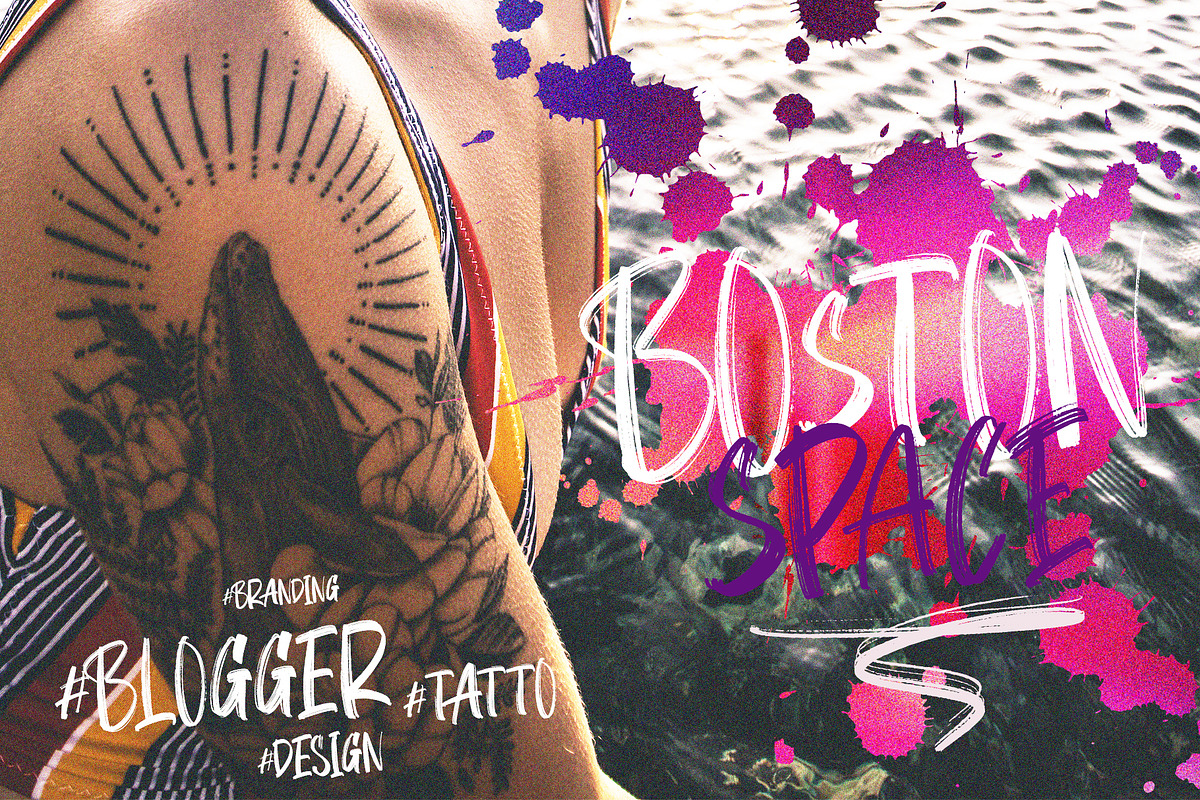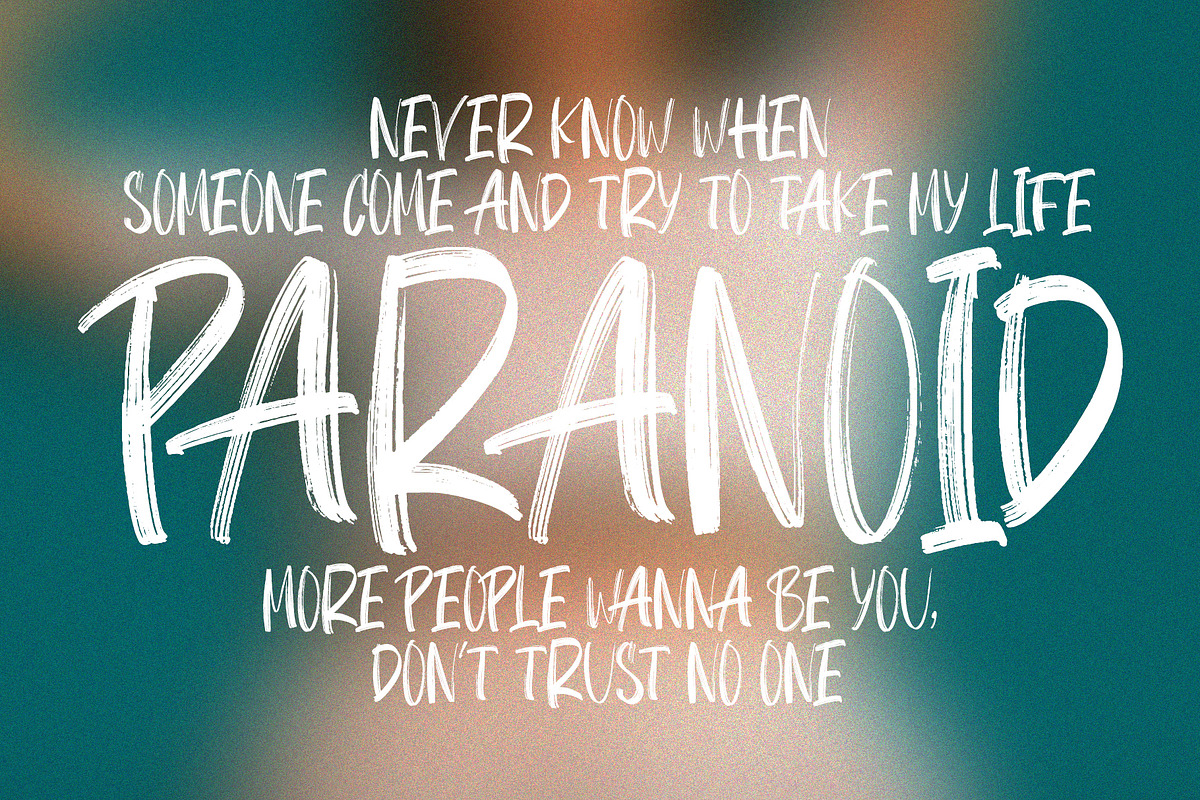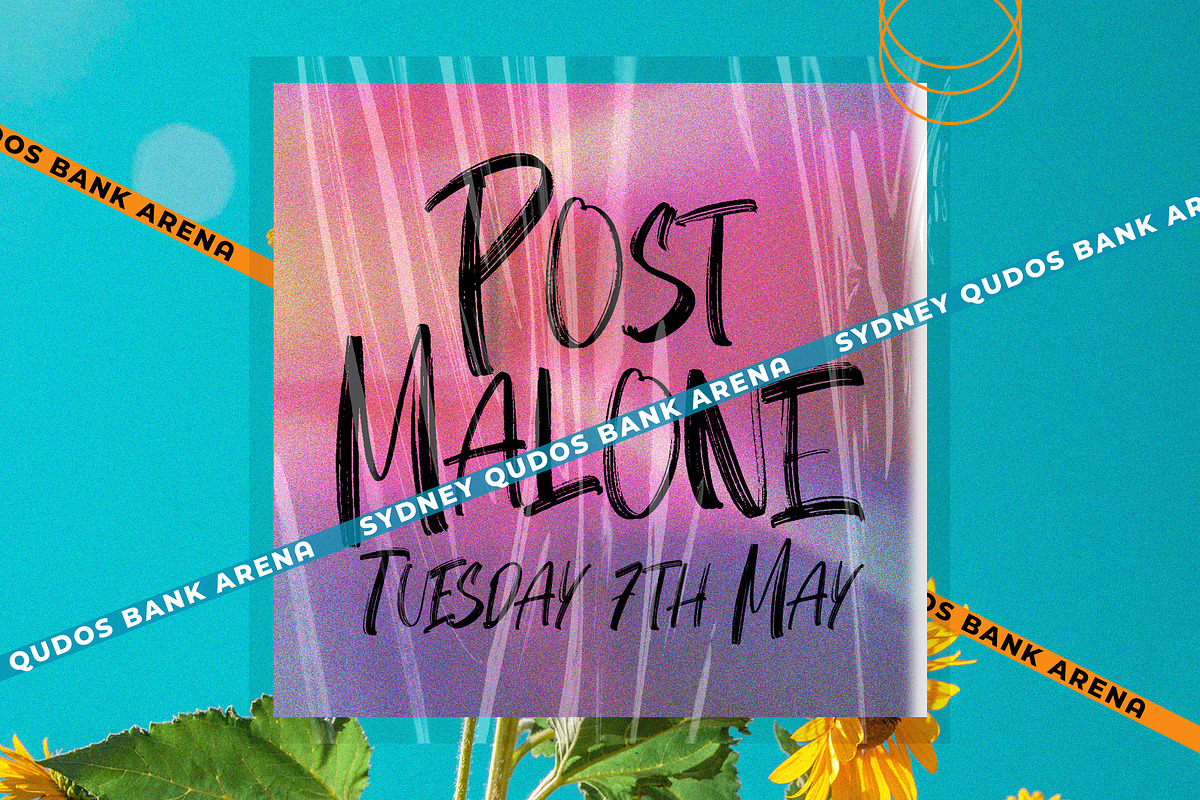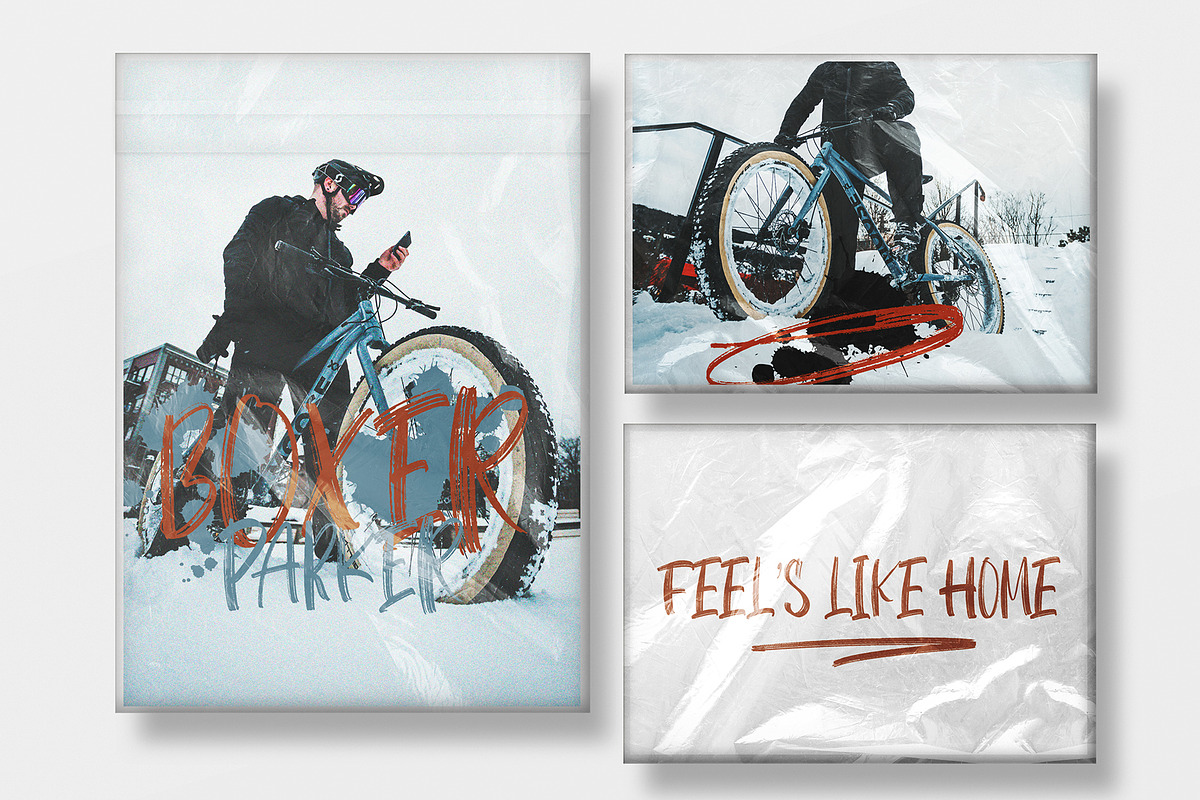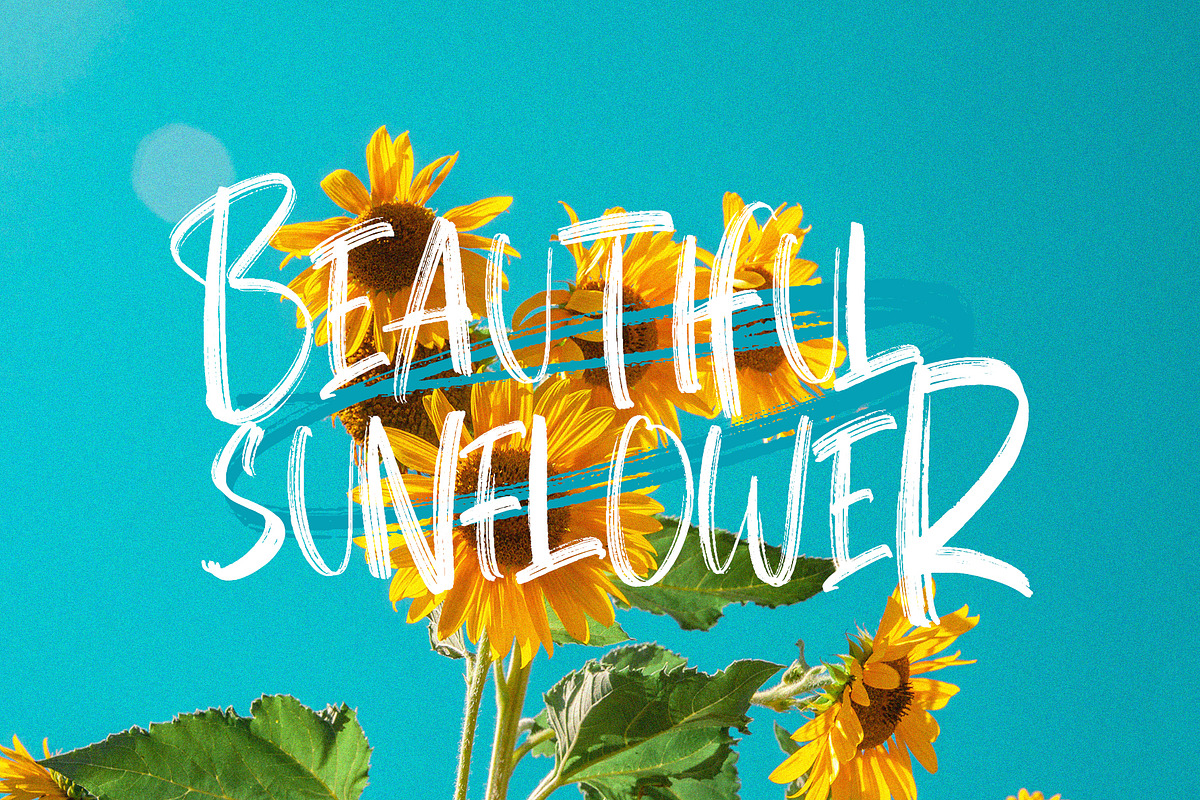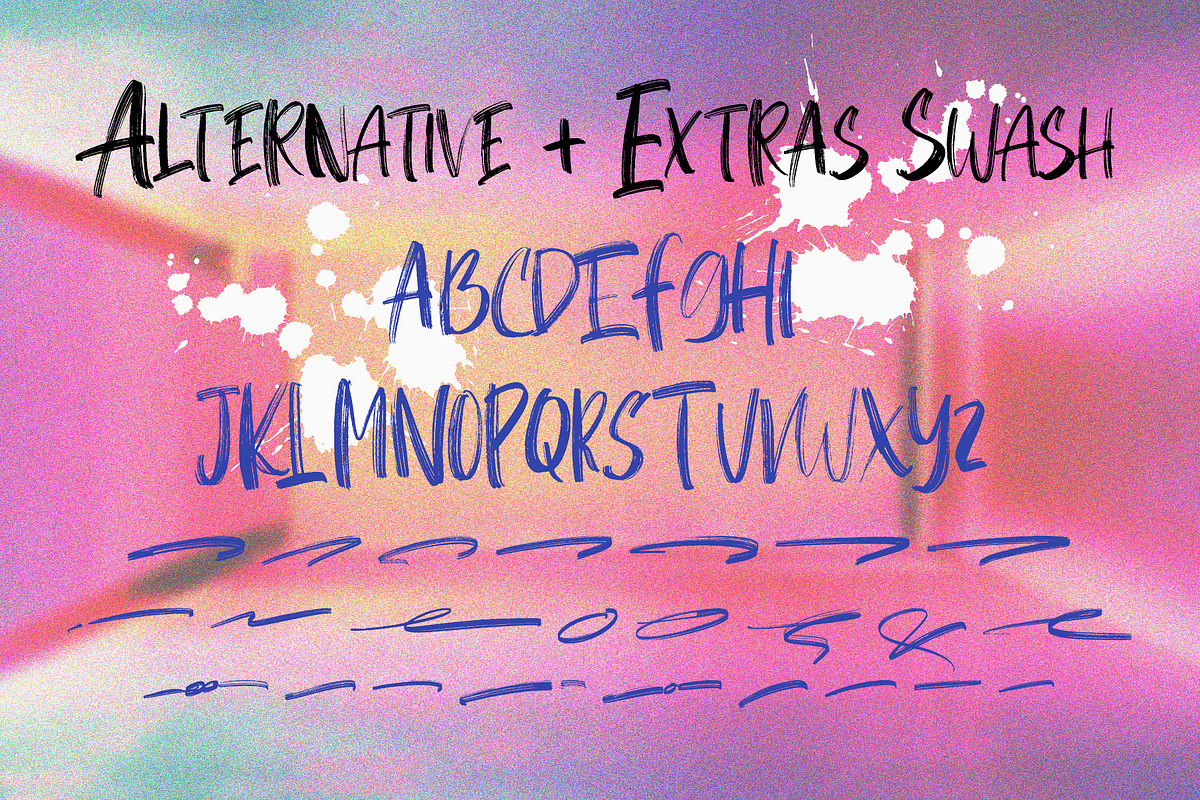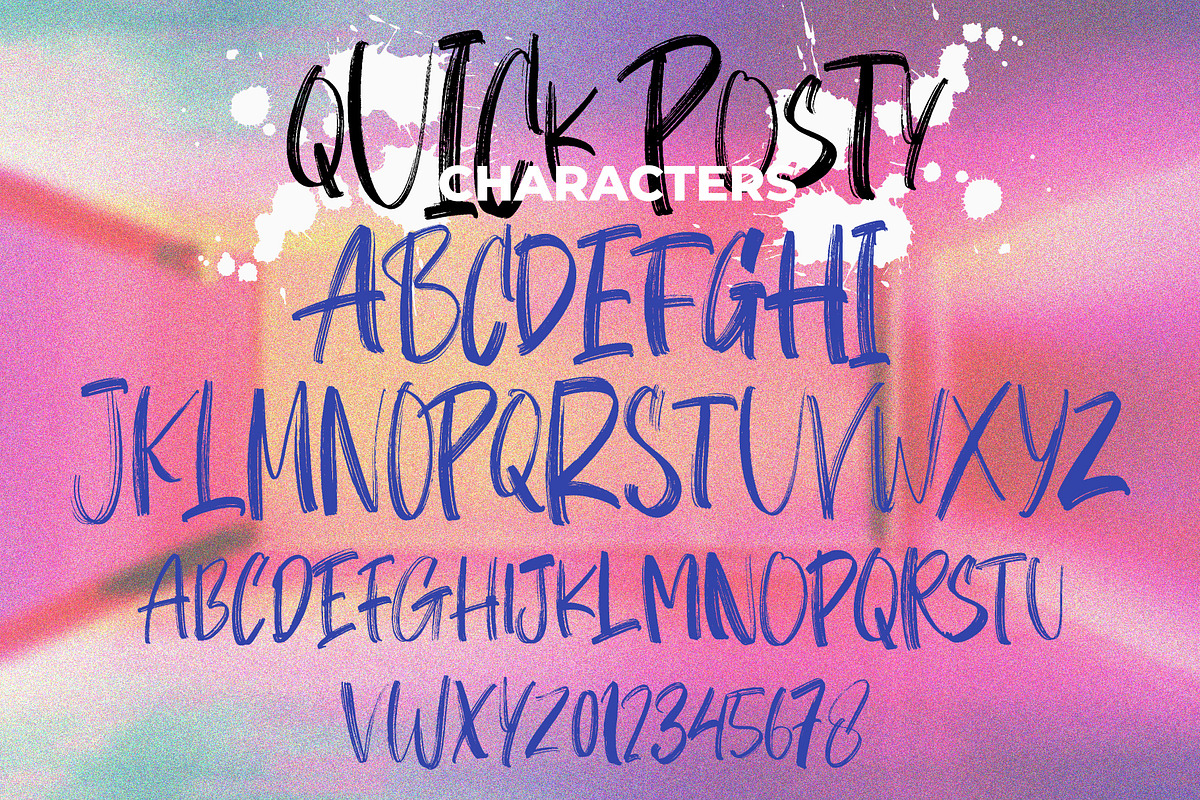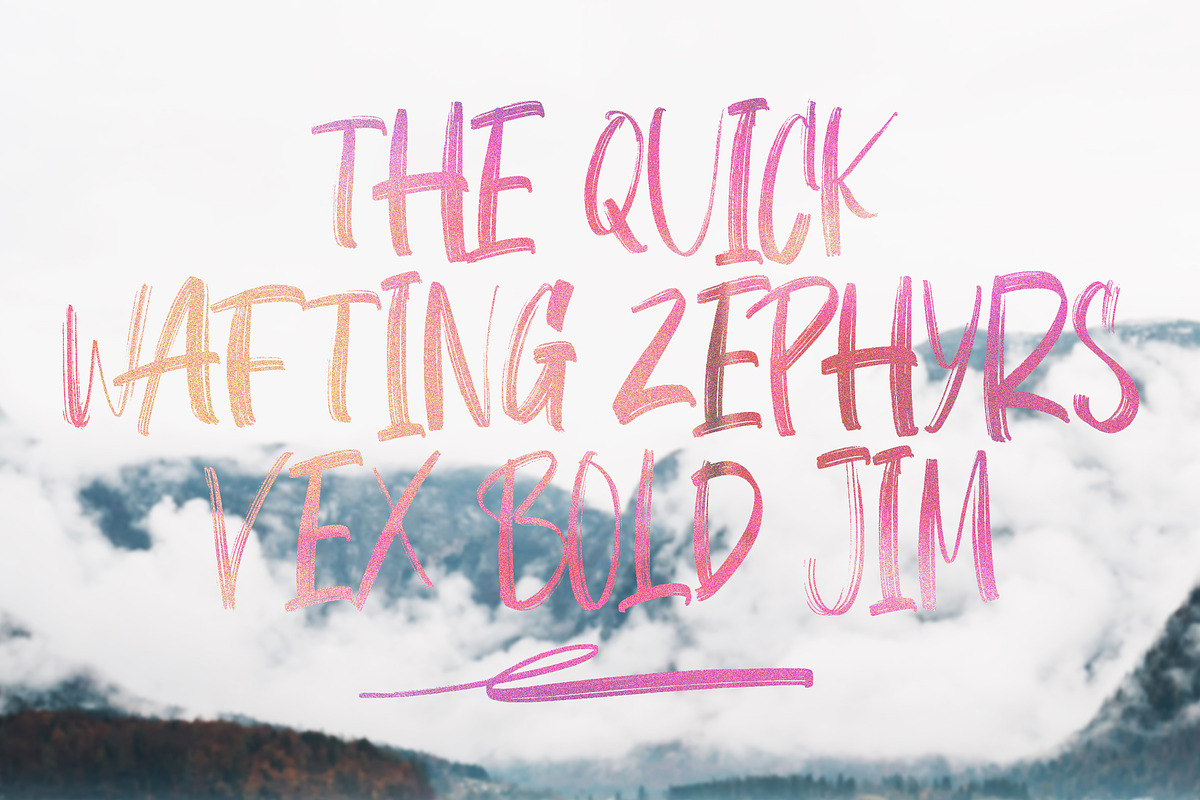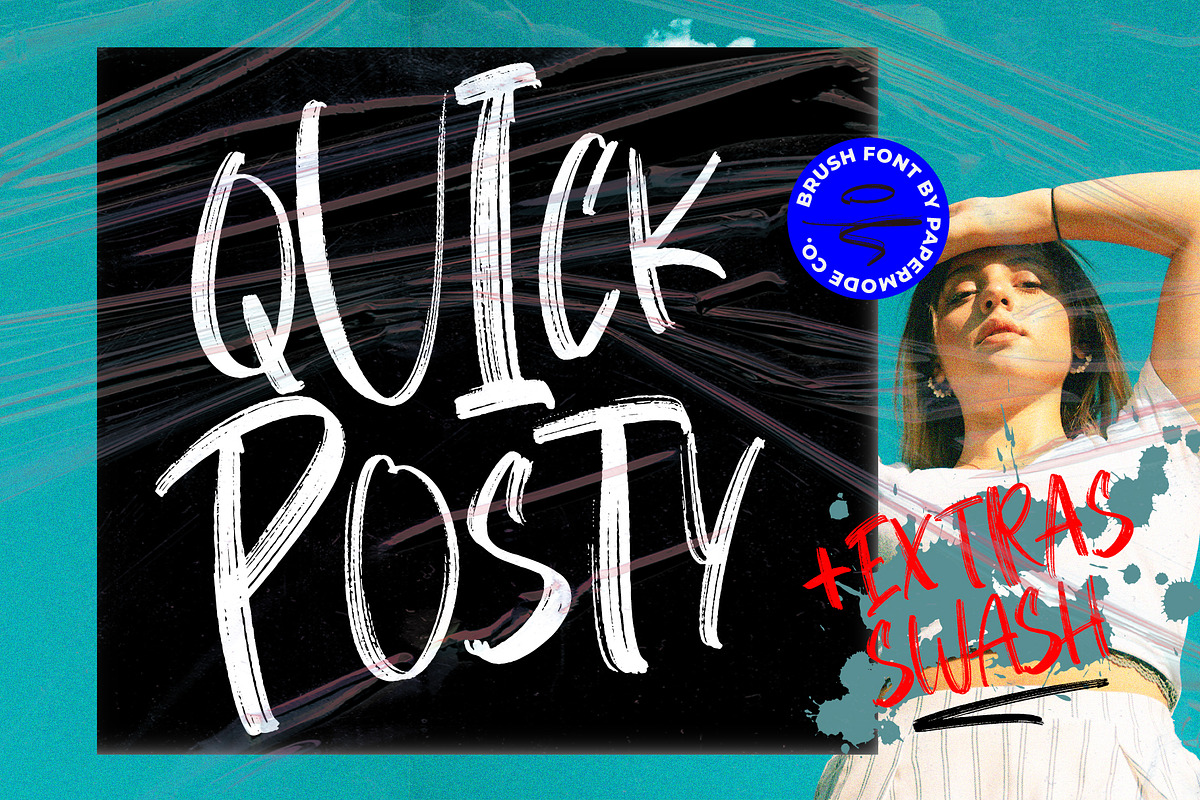
Quick Posty
Quick Posty is a rugged handwitted font inspired by natural brush typography. Written in rapid motion using a slightly dry brush pen. This will give you a fresh and elegant design. Quick Posty comes with uppercase and lowercase numbers and Extras Swash.